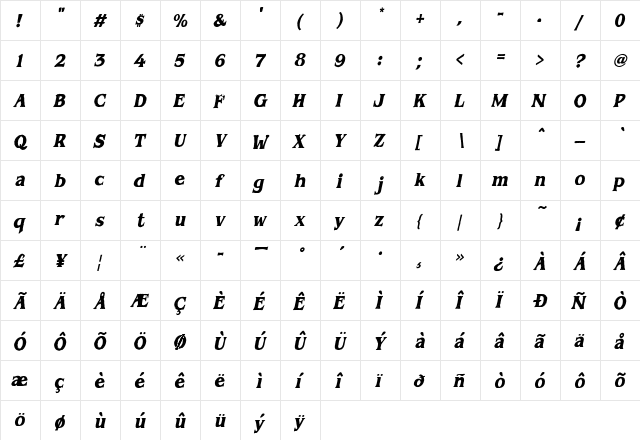
Good Vibrations Solid Italic
Design Context for Good Vibrations Solid Typeface
Good Vibrations Solid offers clean, dependable letterforms without strong stylistic allegiance, making it a practical choice for designers who need flexibility. Its italic angle brings a sense of urgency and motion to the letterforms.
Pro Tip: Try Good Vibrations Solid for annotation and caption copy alongside an upright companion — the contrast in angle creates a dynamic but ordered typographic system.